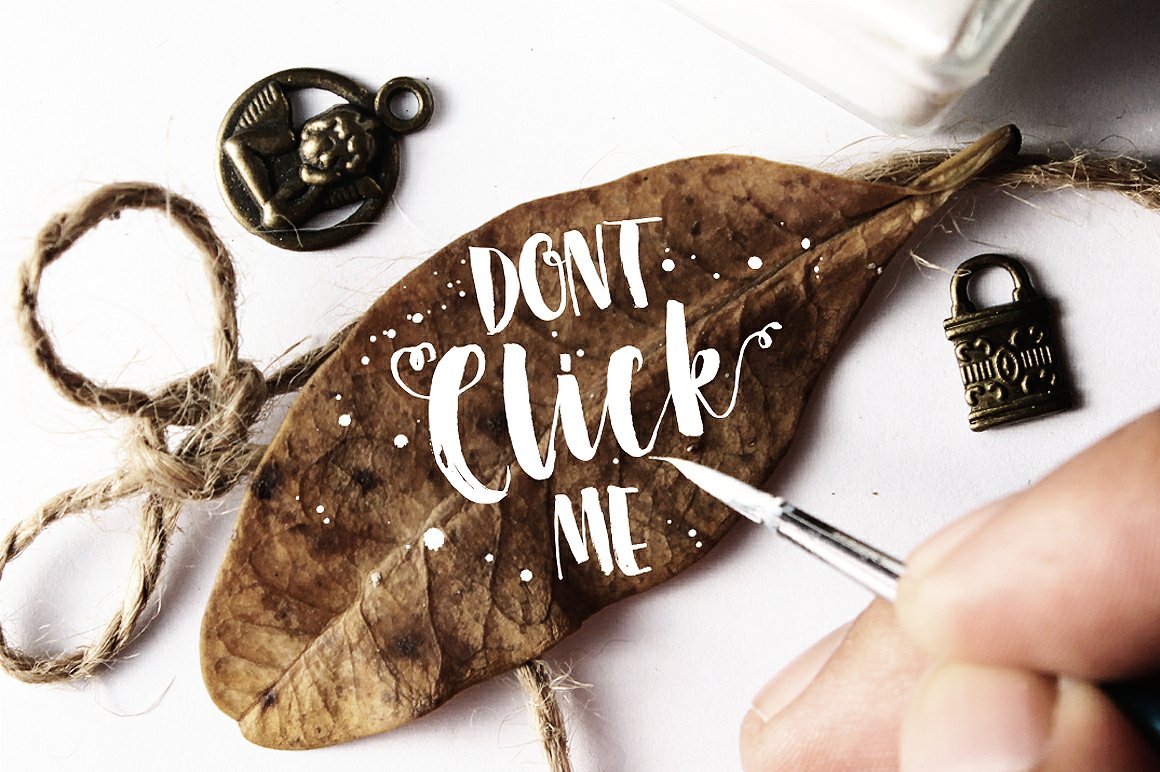
Don’t Click Me
Don't Click Me font
Don’t Click Me font
Introducing Don’t Click Me, a thick and thin style handwritten brush and ink font to makes you addicted more and more on it. Cause i feel pretty addicted to these kinda font lately 🙂